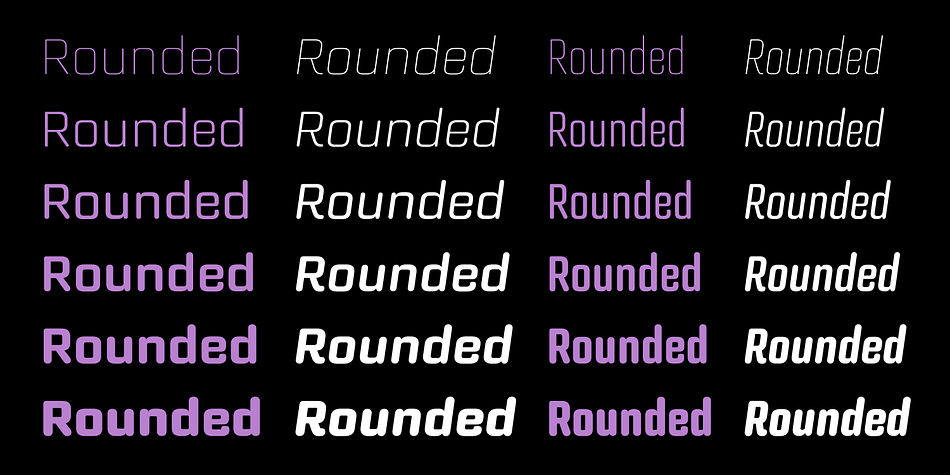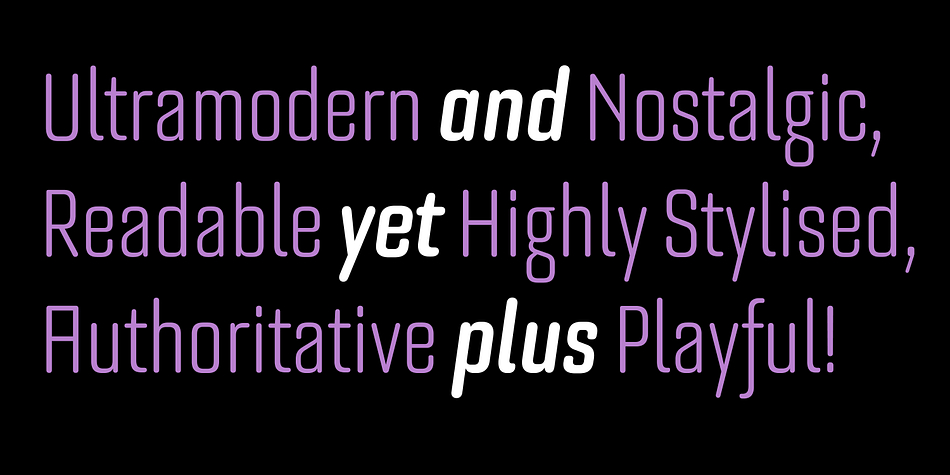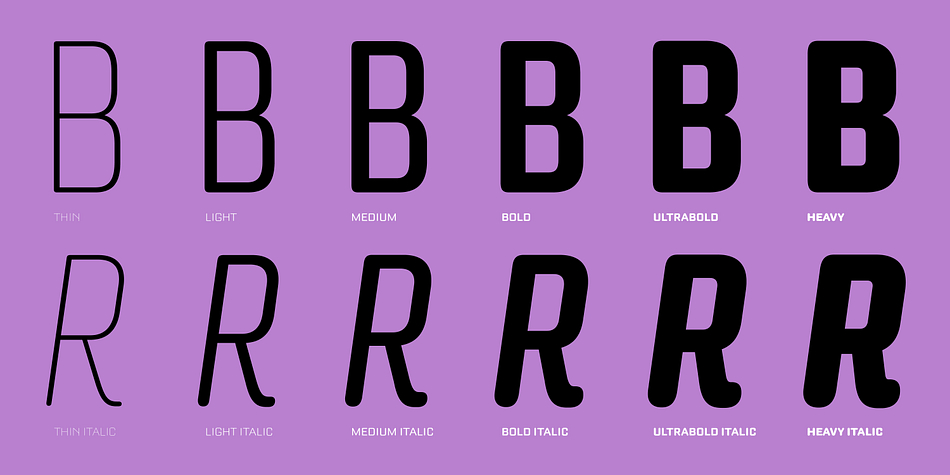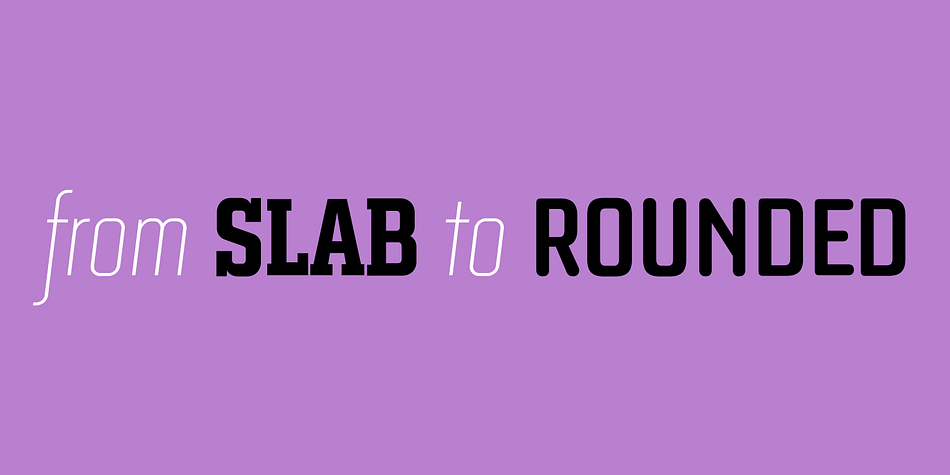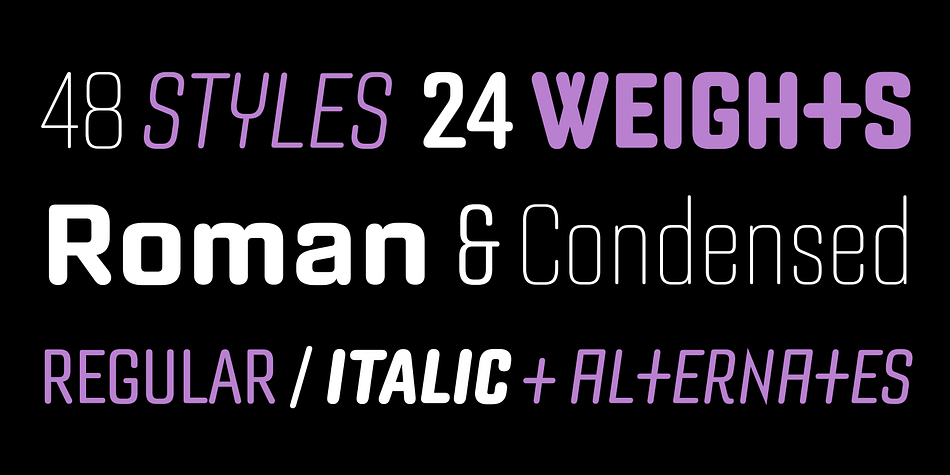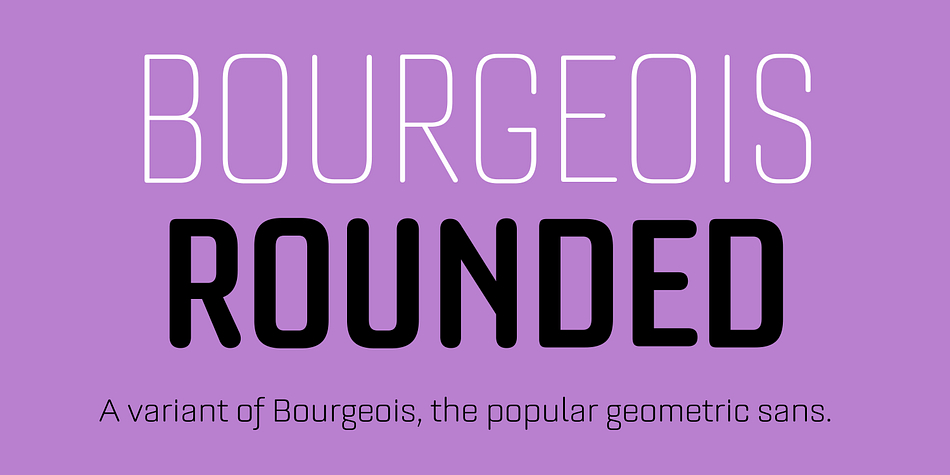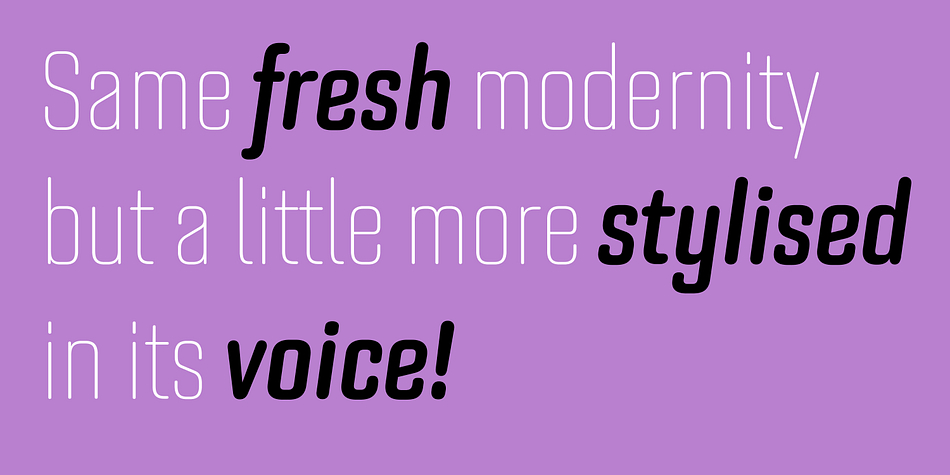
Designed by Jonathan Barnbrook and Julián Moncada, Bourgeois Rounded is a sans serif font family. This typeface has twenty-four styles and was published by Barnbrook Fonts.
Bourgeois Rounded is built upon the framework of Bourgeois, our popular geometric type family. As with the sans-serif Bourgeois Rounded letterforms are contemporary in look and feel. Echoing late 20th century modernism in style, Rounded’s overall look is clean and sleek, more ephemeral and dynamic than Bourgeois’s pared-down asceticism.
The Rounded’s place in the history of font is a complex one. Being lauded for their legible characteristics and also at the same time their fashionable qualities, looking ultramodern and nostalgic, readable and highly stylised, authoritative and playful. Bourgeois Rounded and Rounded Condensed when combined, offer 24 styles suited for text of all kinds and sizes. Both are particularly good for short pieces of text requiring a sense of urgency or playfulness.